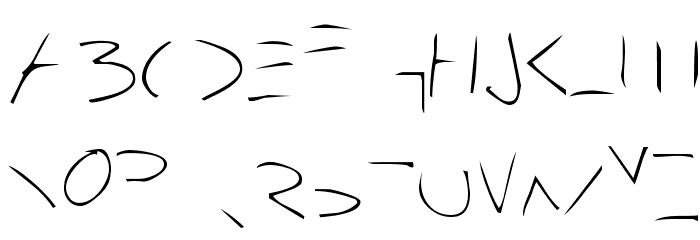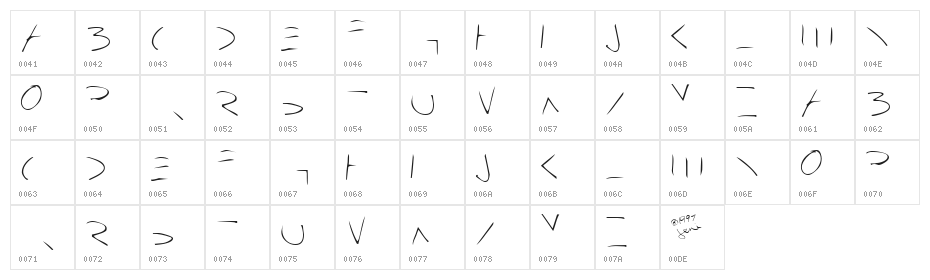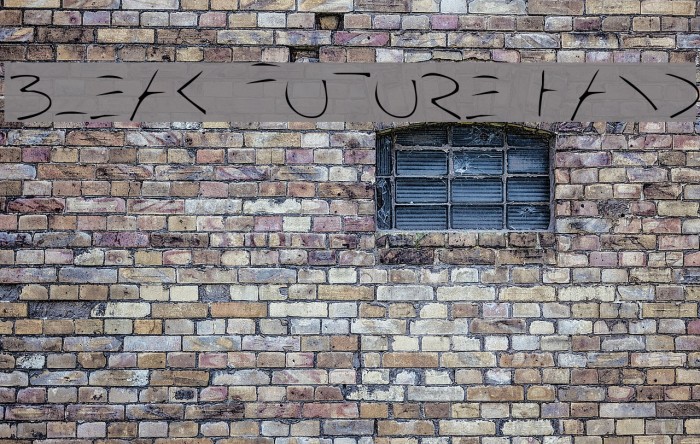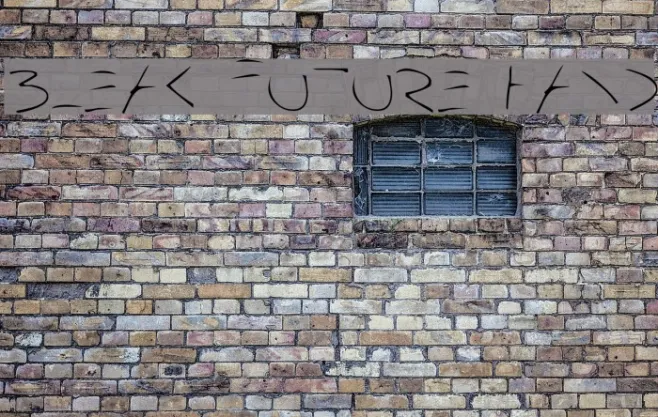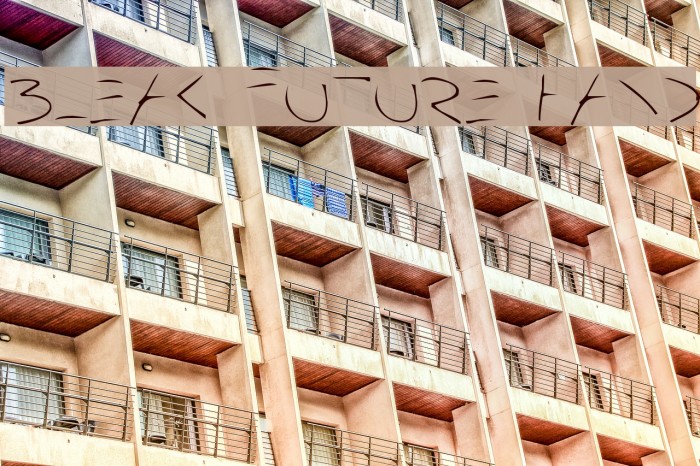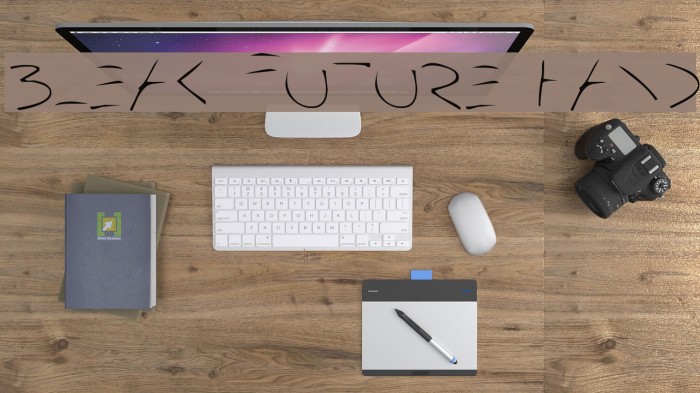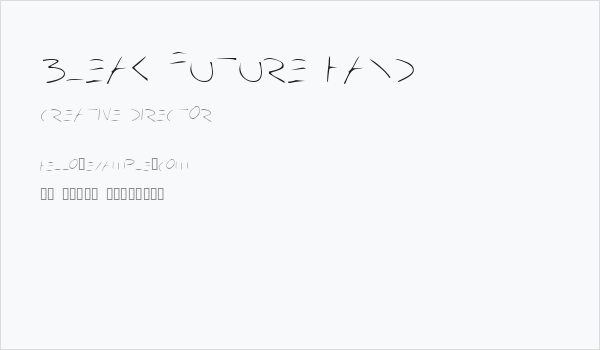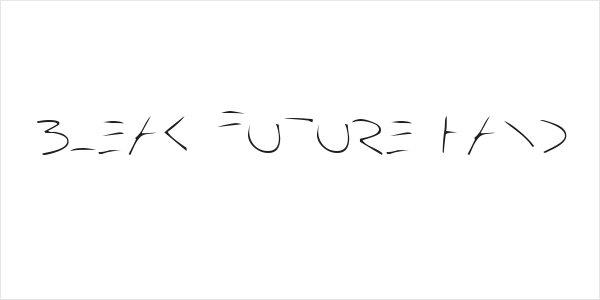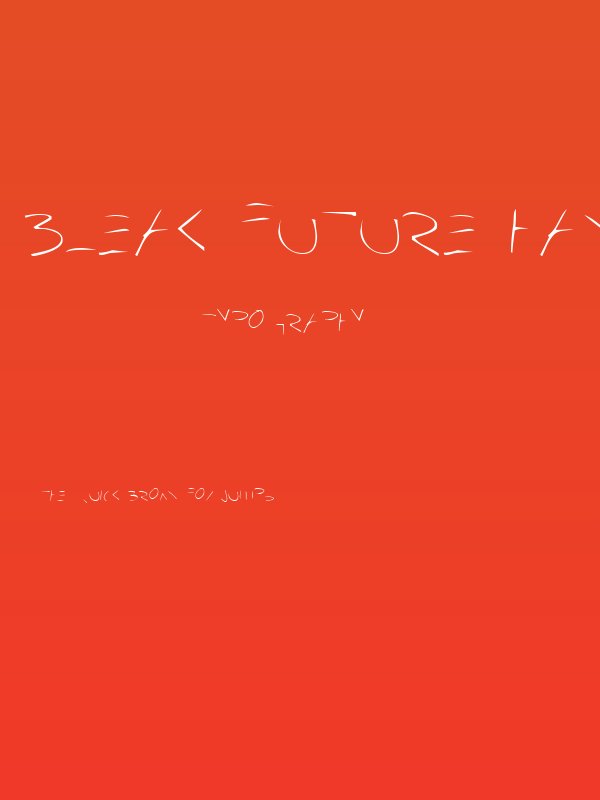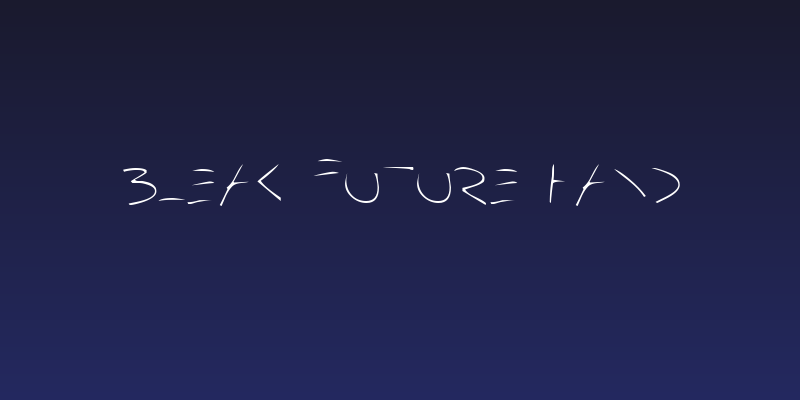
Bleak Future Hand Font
Bleak Future Hand Description
This font exhibits a futuristic and abstract design, characterized by its sharp angles and minimalistic strokes. The letters are formed with a series of straight lines and curves that give it a unique, almost alien-like appearance. The uppercase and lowercase letters maintain a consistent style, with a focus on geometric shapes and a lack of traditional serifs or embellishments. The numbers and special characters follow the same design principles, ensuring a cohesive look across all glyphs. This font is ideal for projects that require a modern and unconventional aesthetic, making it suitable for sci-fi themes, digital art, and innovative branding.
| Proposed Projects | Ideal for sci-fi themes, digital art, innovative branding, and futuristic designs. |